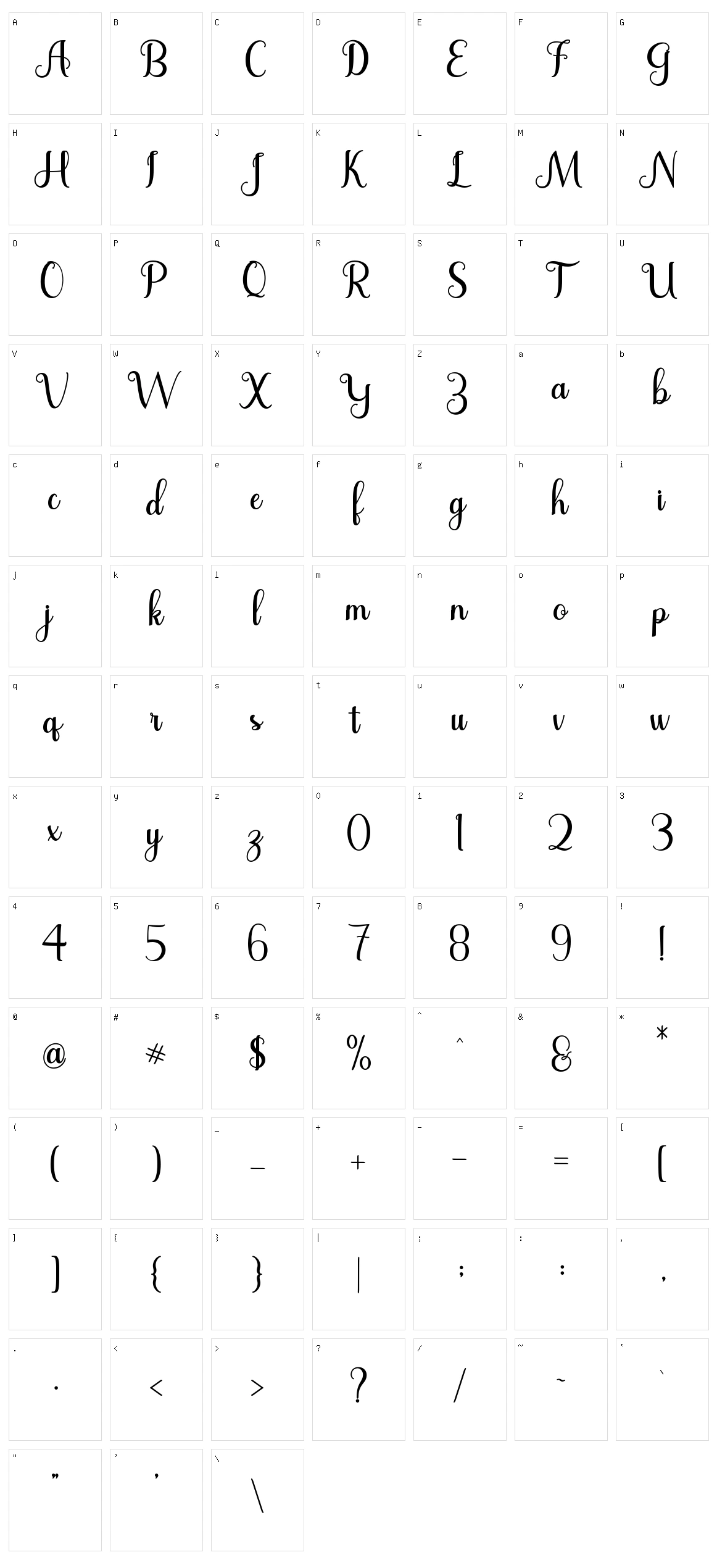
The free font Beatles is carefully designed by Ronin Design, showcasing a thoughtful balance of creativity and usability and falls under the Script font style. When you download the ZIP file, it contains only 59.08 KB of font files, making it lightweight and quick to download. Please review the license details below to understand permitted usage and distribution rights. If license information is not available, we recommend using this font for personal projects only or contacting the author directly for commercial usage permissions.